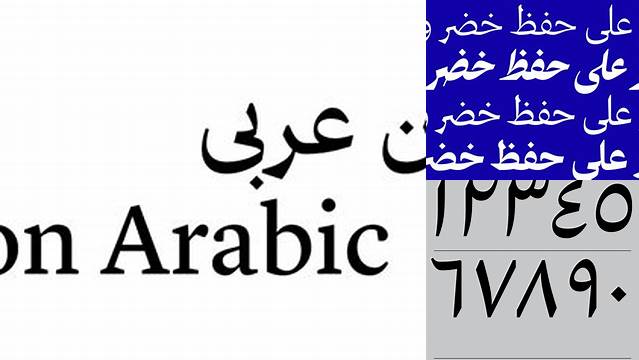
Why Choose Lyon Arabic Font? Unleashing the Power of Modern Arabic Typography
Lyon Arabic font has become a popular choice for designers and creatives around the globe, and for good reason. This font effortlessly blends modern aesthetics with traditional Arabic calligraphy, resulting in a unique and eye-catching design. But what exactly makes Lyon Arabic so special? Let's break it down.
Firstly, the font's design is clean and contemporary. It moves away from the more ornate and traditional styles often found in Arabic fonts. This simplicity makes it incredibly versatile. It looks great in a variety of applications, from website headers and logos to posters and social media graphics. You can use it for a wide range of projects. Secondly, the font is designed to be highly legible. While some Arabic fonts can be challenging to read, Lyon Arabic has been carefully crafted to ensure each letter is clear and easily distinguishable. This makes it perfect for both headlines and body text. Think about how important readability is when you're trying to communicate a message. You don’t want your audience struggling to understand your words! Thirdly, Lyon Arabic font often comes with multiple weights and styles. This means you have the flexibility to create different visual effects. Do you want a bold, attention-grabbing headline, or a subtle, elegant paragraph? Lyon Arabic font usually offers options to suit your needs. This variety makes it easier to create a cohesive design that looks professional. The font’s inherent versatility makes it a great choice for various types of projects. Consider the brand image you're trying to convey. Lyon Arabic can be both modern and friendly, or more sophisticated, depending on how you use it. This adaptability is a major plus for designers. Moreover, the font's availability for free download is a major draw. Who doesn't love free resources? The fact that it is often offered for free makes it accessible to everyone, from students and hobbyists to professional designers. This ease of access allows more people to explore and experiment with Arabic typography.
Think about the overall impact of typography. A well-chosen font can significantly enhance the visual appeal of any project. It sets the tone, conveys a message, and grabs the attention of your audience. Lyon Arabic does all of this. It’s more than just a font; it’s a tool that can elevate your creative work. Understanding the nuances of a font is crucial, from the spacing between letters to the overall shape of each character. These small details contribute to the font's readability and aesthetic appeal. Lyon Arabic strikes a perfect balance, making it both beautiful and functional. The design combines elegance and modernity, making it suitable for a range of different purposes, like branding and marketing. In short, using this font provides endless creative possibilities. The font provides a fresh take on Arabic typography. It provides a modern aesthetic, perfect for a variety of creative projects. So, if you're after a font that's both stylish and functional, Lyon Arabic is definitely worth a shot. You’ll find it easy to incorporate into your projects. You'll quickly see why it's a top choice for designers around the world.
Design Tips: Making the Most of Lyon Arabic Font
First, choose the right weight and style. The Lyon Arabic font typically comes with multiple weights (like regular, bold, and light) and styles. Experiment to find the perfect fit for your design. A bold weight is excellent for headlines, while a regular weight may be better for body text. Also consider the overall look and feel you want to create. Secondly, consider the context. Think about where your design will be used. Is it a website, a poster, or a social media graphic? Make sure the font is legible and appropriate for the intended audience. A font that looks great on a website might not be suitable for a print design. Thirdly, pay attention to spacing. Adjust the letter spacing (kerning) and line spacing (leading) to improve readability. Too much or too little spacing can make your text difficult to read. Fine-tuning these settings can make a big difference. Experiment with different colors. Make sure your font color contrasts well with the background. This is critical for readability. Consider using a color palette that complements the font. This will ensure that your text stands out and is easy to read. Make use of hierarchy. Use different font sizes and weights to create a visual hierarchy. This helps guide the reader's eye and emphasizes important information. Using different sizes will also help organize the content. Always check the font size. For body text, make sure the font size is large enough to be easily read. Avoid using tiny fonts that strain the reader's eyes. A good rule of thumb is to ensure that the text is easily readable from a normal viewing distance. For web design, optimize the font for different screen sizes. Make sure your design is responsive. Test your design on various devices to ensure the font looks good on both desktop and mobile. Also, make sure the design is easy to navigate. Incorporate negative space. Make use of negative space (the empty areas around your text) to prevent your design from looking cluttered. This can improve the overall visual appeal and make your text more readable. It helps to create a clean and organized layout. If using the font for logos or branding, ensure consistency. Use the font consistently across all your branding materials to create a unified brand identity. Consistency is important for building brand recognition and trust. Combining it with other fonts can be a great way to add visual interest and provide contrast. Remember, the goal is to create a visually appealing and effective design. With these tips, you'll be well on your way to creating stunning visuals with Lyon Arabic font.
Conclusion: Unleash Your Creativity with Lyon Arabic Font